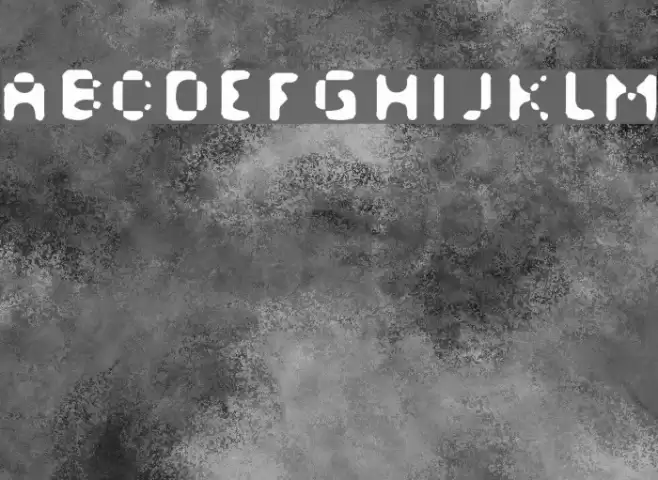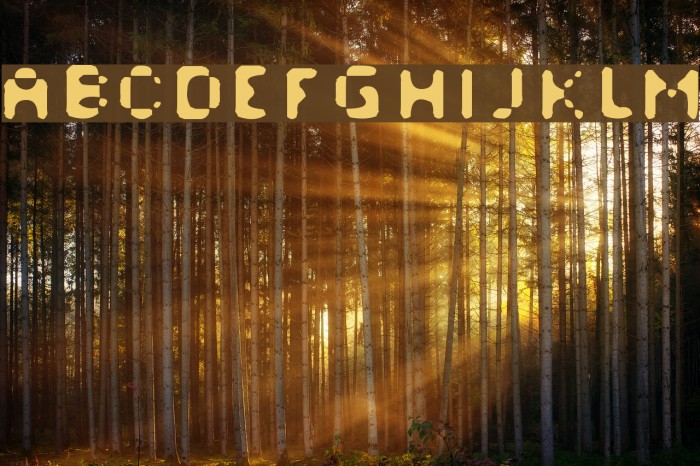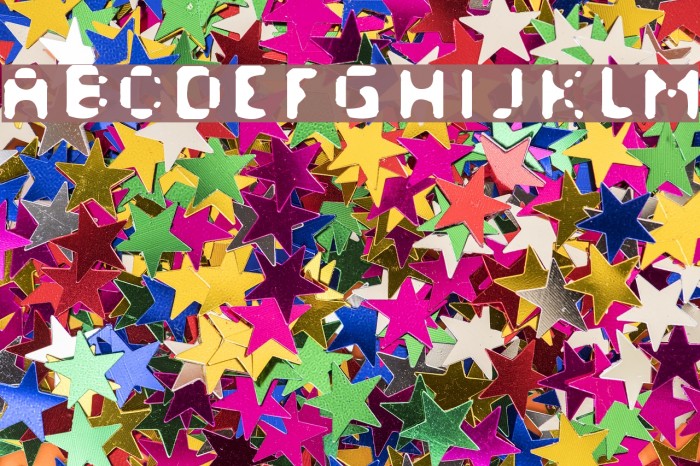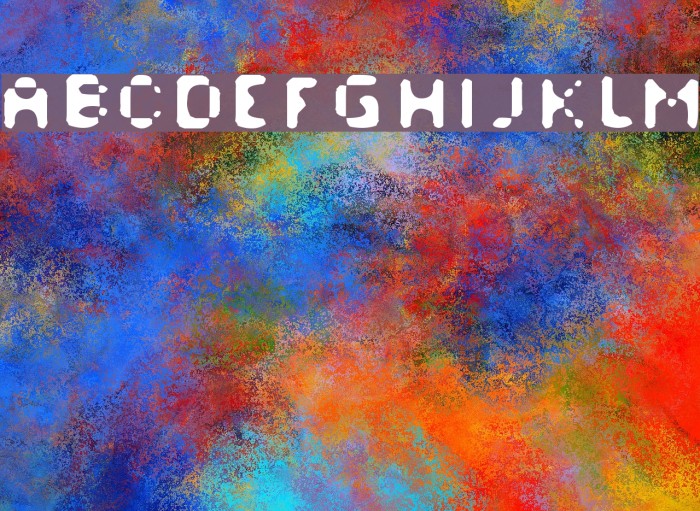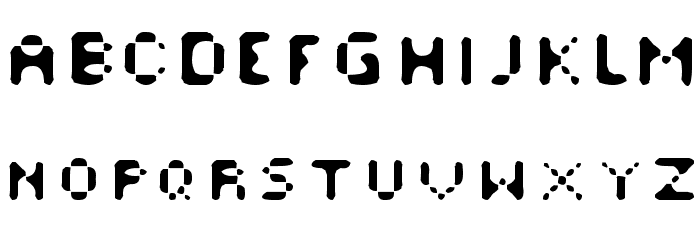
Afterfonts Font
Afterfonts Description
This font features a bold and futuristic design with a unique blend of geometric shapes and rounded edges. The characters are constructed with solid, thick strokes that give a sense of strength and modernity. The use of negative space within the letters adds an intriguing visual element, making it stand out in any design. The uppercase letters are particularly striking, with a consistent height and width that create a uniform appearance. The lowercase letters maintain the same boldness, ensuring readability while retaining the font's distinctive style. The numbers and special characters are crafted with the same attention to detail, ensuring a cohesive look across all text elements.
A bold, futuristic font with geometric shapes and rounded edges from Futuristic fonts.